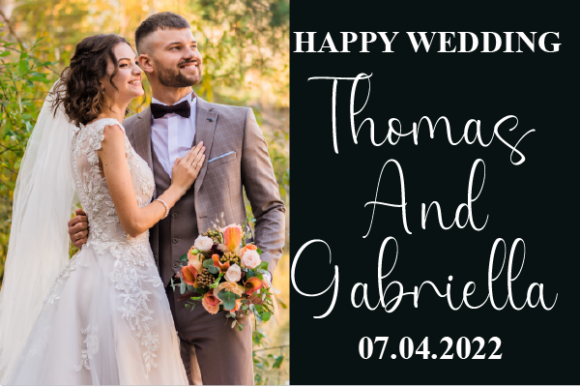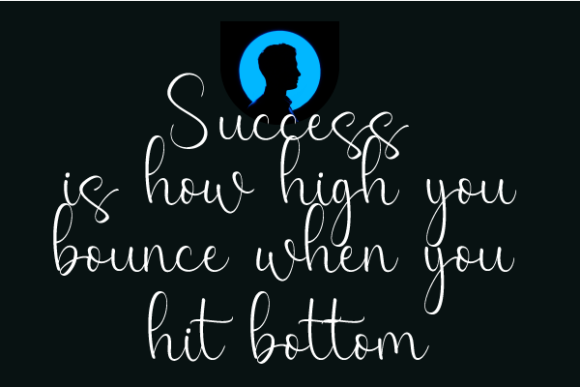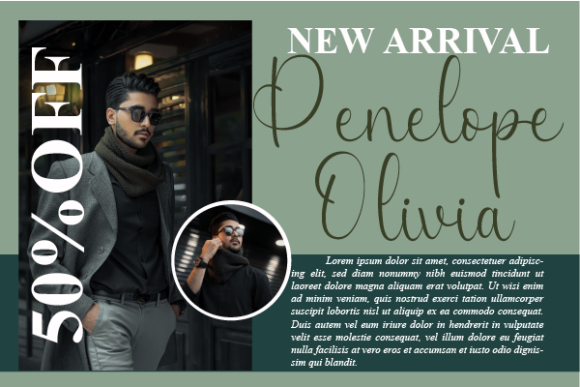
Raimond Font
About Raimond Font
The elegant and fun calligraphy font you’re referring to is an excellent choice for infusing a playful touch into your design projects. With its stylish and lighthearted appeal, this font can breathe life into various creative endeavors, from logos and stationery to posters and more.
The combination of elegance and playfulness creates a dynamic and versatile font that can cater to a wide range of design needs. Whether you’re working on branding, promotional materials, or visual elements for your project, this font adds a delightful and charming flair.
Its calligraphic elements contribute to the overall sophistication, while the fun aspect ensures a lively and engaging vibe. The balance between elegance and playfulness makes this font suitable for diverse applications, allowing you to create designs that are both refined and enjoyable.
In summary, this elegant and fun calligraphy font serves as a fantastic tool for designers looking to inject a playful touch into their projects. Whether used for logos, stationery, posters, or any other design endeavor, its unique blend of elegance and fun promises to captivate and delight.